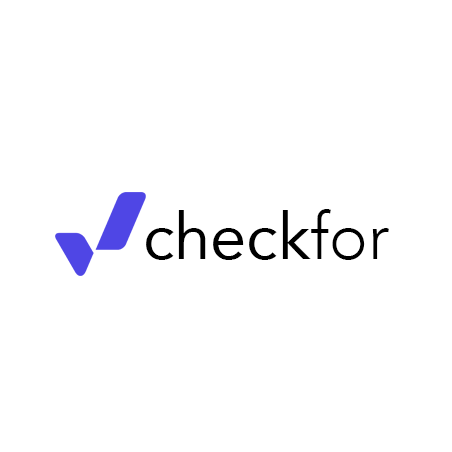
CheckFor Logo Font
LogoCheckFor is a healthcare diagnostics brand focused on rapid testing products designed for both professional and consumer use. The brand is built around accessibility, speed, and trust, with products positioned to feel clinical, modern, and easy to understand across packaging and marketing materials.
The font used in the CheckFor logo is Avenir by Linotype.
Designed by Adrian Frutiger, Avenir is a geometric sans-serif with subtle humanist characteristics, giving it a clean and modern appearance without feeling overly rigid. Its balanced proportions and strong legibility make it a popular choice for healthcare, technology, and corporate branding.